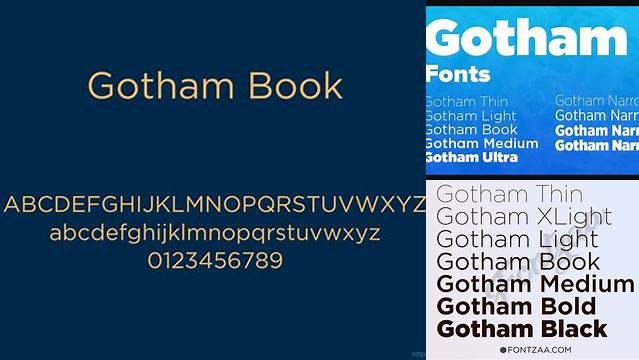
Gotham Book Font: Free Download Guide & Alternatives
Gotham Book Font has emerged as a prominent typeface in the design world, celebrated for its clean lines, geometric structure, and exceptional readability. Its versatility makes it a favorite among designers for a wide array of applications, ranging from branding and logos to website design and editorial layouts. The font's modern and sophisticated aesthetic conveys a sense of professionalism and clarity, making it an ideal choice for projects aiming for a contemporary look and feel. Guys, if you're looking to add a touch of elegance and modernity to your designs, Gotham Book Font might just be the perfect solution. Its popularity stems from its ability to seamlessly blend into various design contexts while maintaining its distinct character.
Delving deeper into the appeal of Gotham Book Font, its widespread adoption across diverse industries and media platforms highlights its effectiveness as a communication tool. From corporate branding to user interface design, Gotham Book has proven its ability to enhance visual appeal and improve readability, thereby contributing to a positive user experience. Its neutral yet distinctive design allows it to work harmoniously with other design elements, making it a reliable choice for designers seeking a font that can adapt to different styles and branding guidelines. The font's geometric construction, inspired by mid-century architectural signage, lends it a timeless quality that resonates with contemporary design trends. This fusion of classic and modern elements contributes to Gotham Book Font's enduring popularity and its status as a go-to typeface for designers worldwide.
Moreover, the versatility of Gotham Book Font extends to its availability in multiple weights and styles, offering designers a comprehensive toolkit to address various design challenges. From the light and airy Gotham Thin to the bold and impactful Gotham Black, each weight provides a unique visual emphasis, allowing for nuanced typographic hierarchies and visual interest. The font family also includes italic styles, which further expand its expressive potential. This extensive range of options makes Gotham Book Font a valuable asset for projects requiring consistency and visual harmony across different media and formats. Whether it's creating a cohesive brand identity or designing a user-friendly website, Gotham Book Font provides the typographic flexibility needed to achieve professional and aesthetically pleasing results. So, you see, its versatility and adaptability are key reasons why Gotham Book Font remains a top choice for designers across the globe.
If a Gotham Book Font free download isn't feasible, you're in luck! There are several fantastic free alternatives that capture the essence of Gotham's clean, geometric style. These fonts offer a similar aesthetic and readability, making them excellent substitutes for various design projects. One popular alternative is Montserrat, a widely used font available on Google Fonts. Montserrat shares Gotham's geometric sans-serif structure and provides a modern, professional look. Guys, it's a great option for branding, web design, and print materials. Its versatility and extensive character set make it a reliable choice for designers seeking a Gotham-like feel without the cost.
Another noteworthy alternative is Lato, also available on Google Fonts. Lato is a humanist sans-serif font that combines a sense of warmth with geometric precision. Its semi-rounded details add a friendly touch, while its overall structure maintains a professional appearance. Lato is highly legible in both body text and headlines, making it a versatile option for a wide range of applications. For those looking for a font with a slightly softer and more approachable feel than Gotham, Lato is an excellent choice. Its open forms and balanced proportions contribute to its readability and visual appeal, making it a popular alternative among designers.
A third compelling alternative is Open Sans, another gem from Google Fonts. Open Sans is a highly legible sans-serif font designed with an open form and a neutral yet friendly appearance. Its clean lines and balanced proportions make it suitable for both web and print use. Open Sans is particularly effective in user interfaces and digital content, where readability is paramount. Guys, its wide range of weights and styles provides ample flexibility for creating typographic hierarchies and visual interest. If you're aiming for a clean, modern, and highly readable design, Open Sans is a fantastic alternative to Gotham. Exploring these free alternatives can broaden your typographic palette and help you achieve your design goals without compromising on quality or style. Remember, the key is to find a font that complements your project's overall aesthetic and effectively communicates your message.